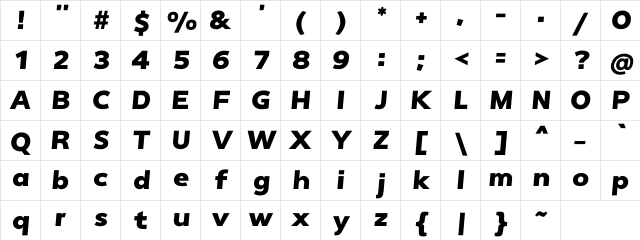
Plata BoldItalic Free Font
Plata BoldItalic
Designer: Arief rochman
Design Context for Plata
Plata is a composed and adaptable typeface that performs quietly and consistently across a wide range of design contexts. The slanted form adds forward momentum and visual energy. Its bold stroke weight gives it real presence on the page.